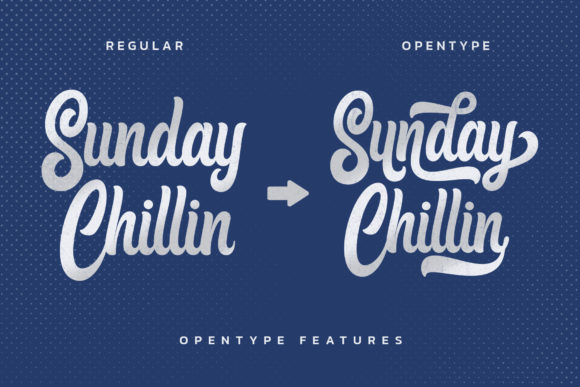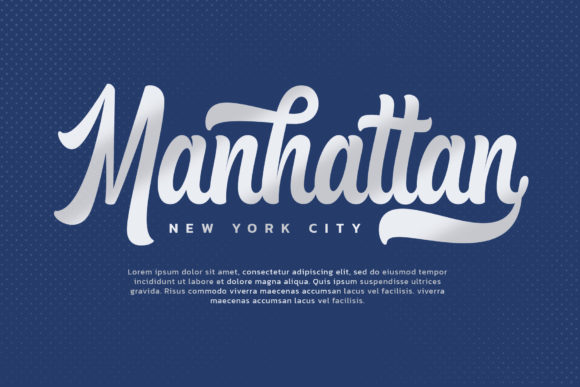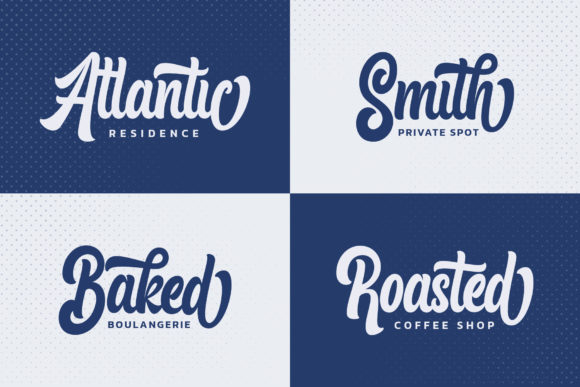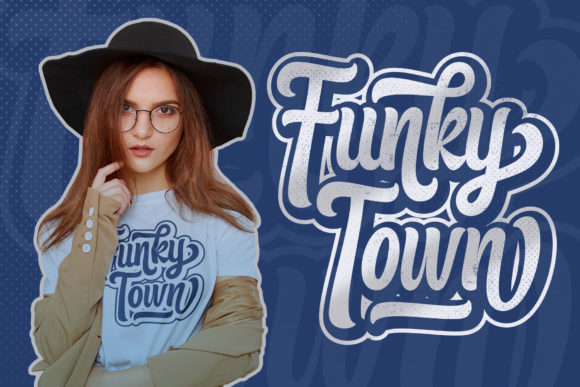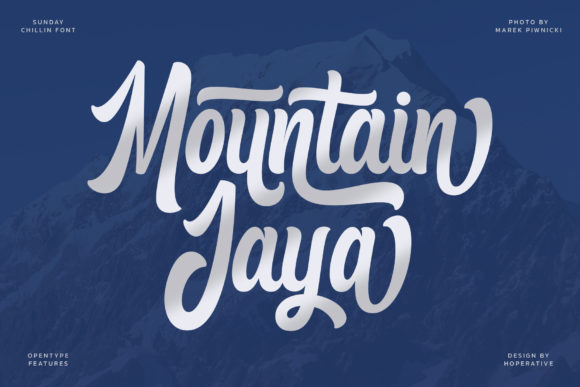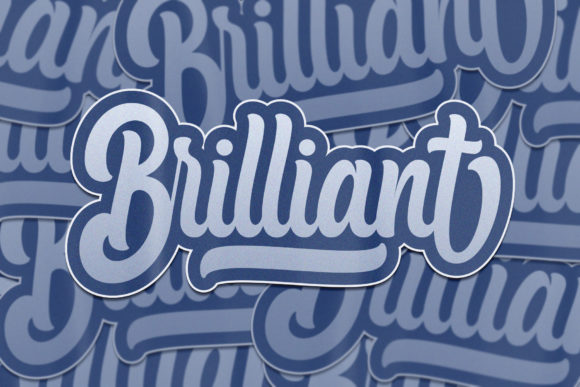
Sunday Chillin Font
About Sunday Chillin Font
Sunday Chillin is a gorgeous retro script font specially crafted to add character to each of your designs. It will look amazing on logos, branding, invitations, stationery, wedding designs, social media posts, and many more!